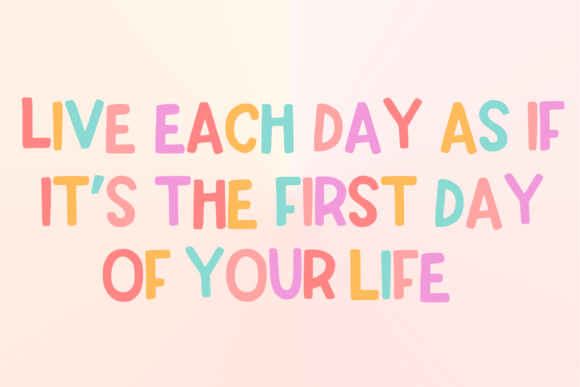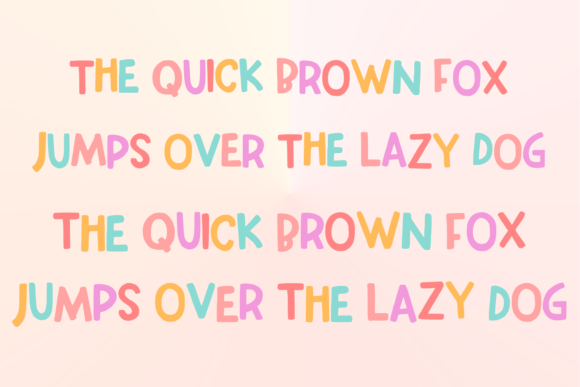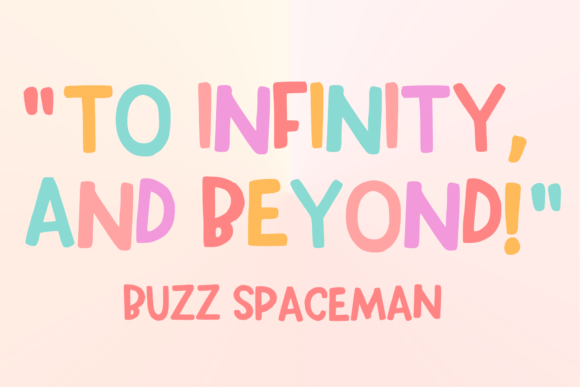
Introduction to In Rainbow Font
In Rainbow is a very cool and fun display font.
You can use it for anything ranging from t-shirts, kids’ book designs, greeting cards, stickers, and posters, blog writing, social media content, or anything that needs a casual touch Try it to create lovely designs and feel the good vibes with it.
Key Features of In Rainbow Font
Why Choose In Rainbow Font?
In Rainbow Font offers exceptional quality and versatility, making it a valuable addition to your design toolkit. Whether you’re creating for personal projects or commercial use, In Rainbow Font delivers professional results.